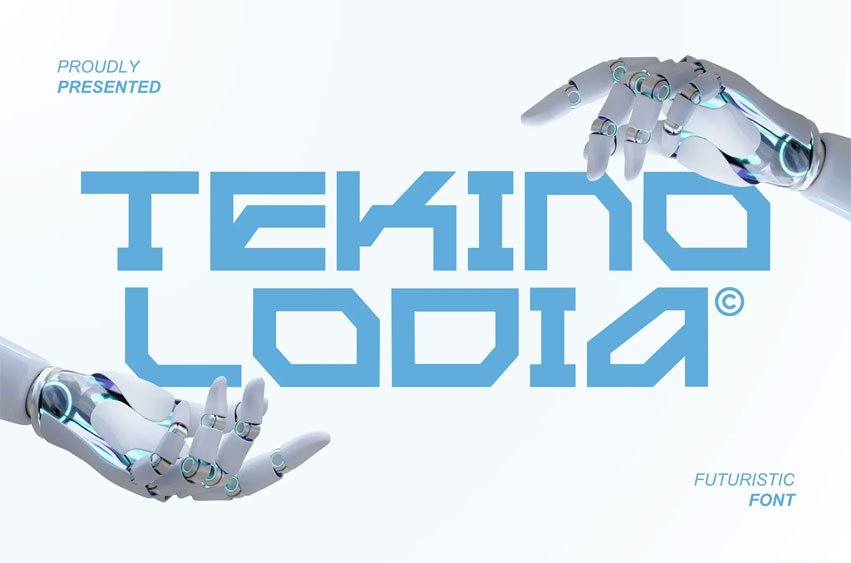
Tekinolodia Font is a futuristic sans-serif font built with sharp geometric forms and a modern digital feel for technology, AI, and innovation-driven visuals.
Perfect for technology branding, AI projects, startup identities, sci-fi posters, UI headlines, and futuristic presentations. TEKINOLODIA helps your designs communicate innovation, precision, and modernity.